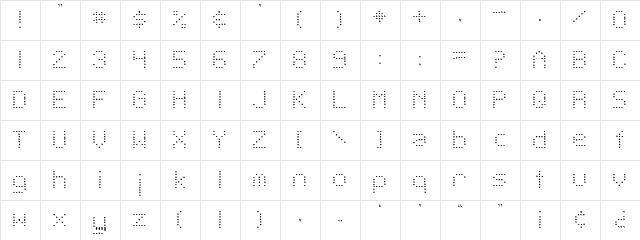
SF Telegraphic Light Regular
| Foundry | ShyFoundry |
| Designer | Derek Vogelpohl |
Design Context for SF Telegraphic Light Typeface
SF Telegraphic Light takes a measured approach to typography — its balanced proportions and neutral character make it a reliable workhorse for both digital and print work. The delicate stroke weight brings airiness and refinement to layouts.